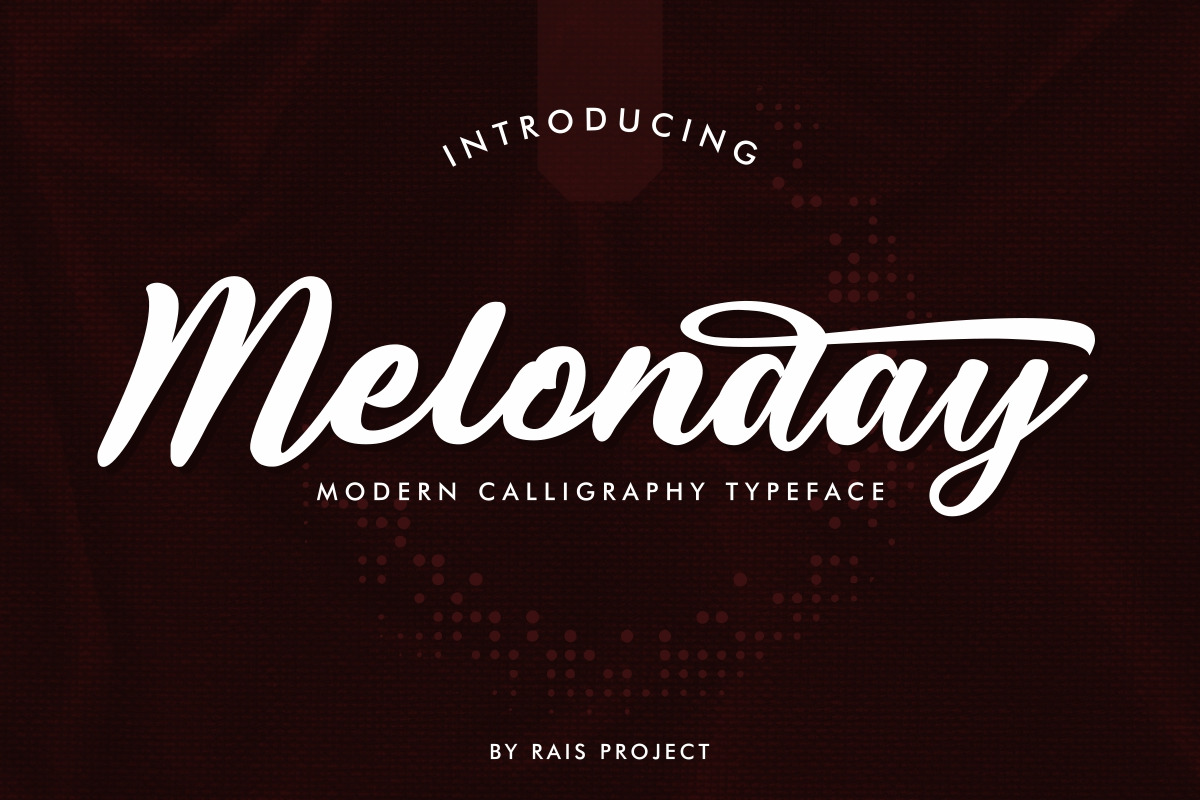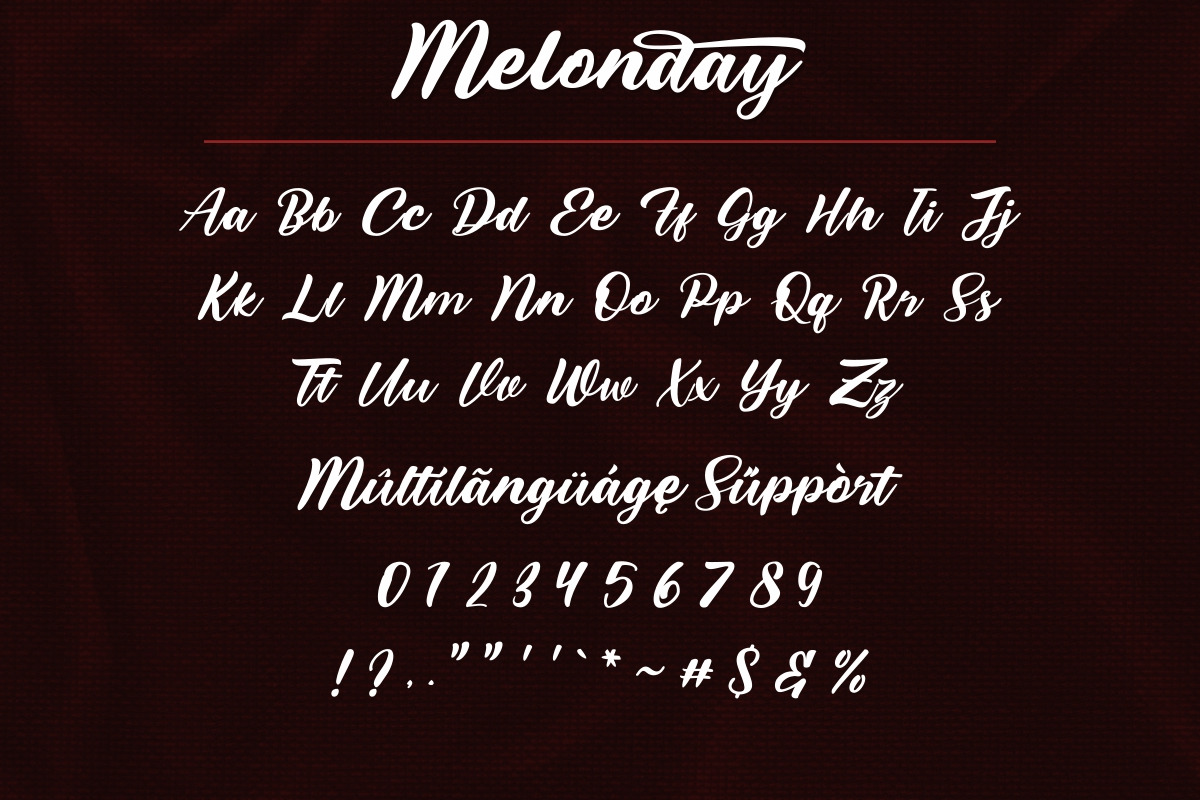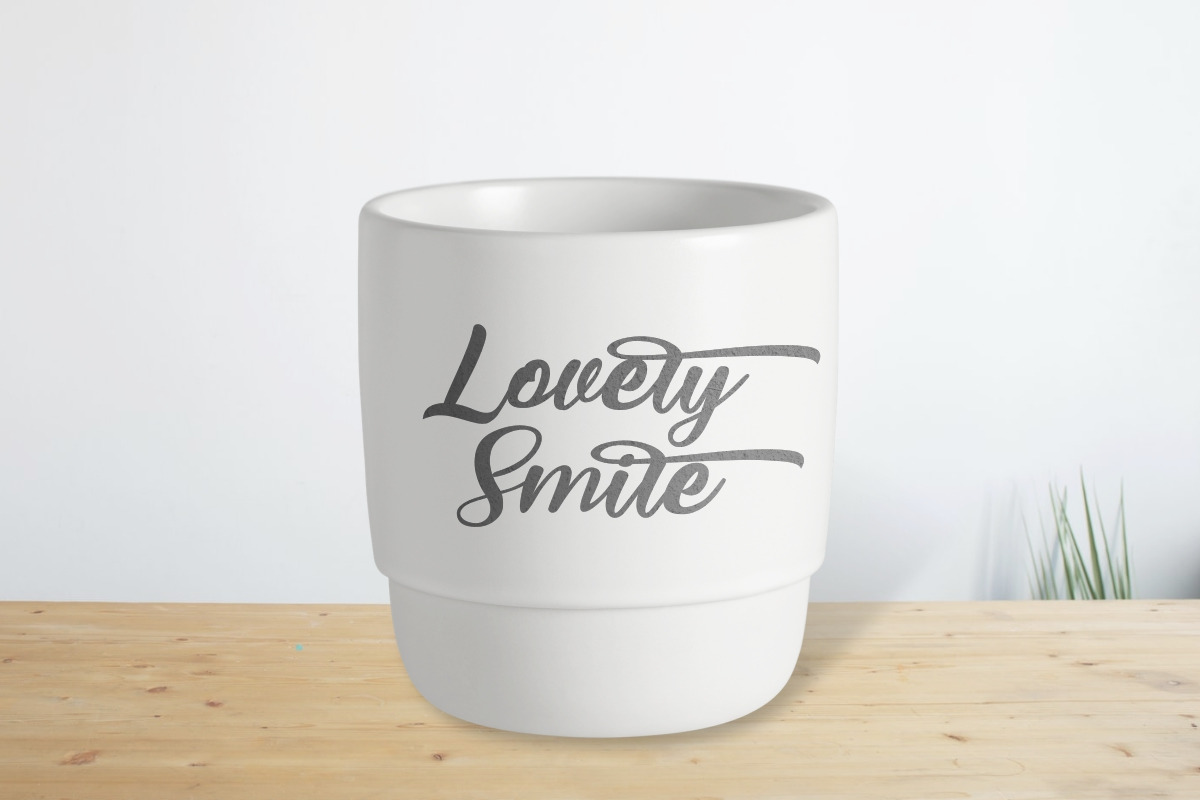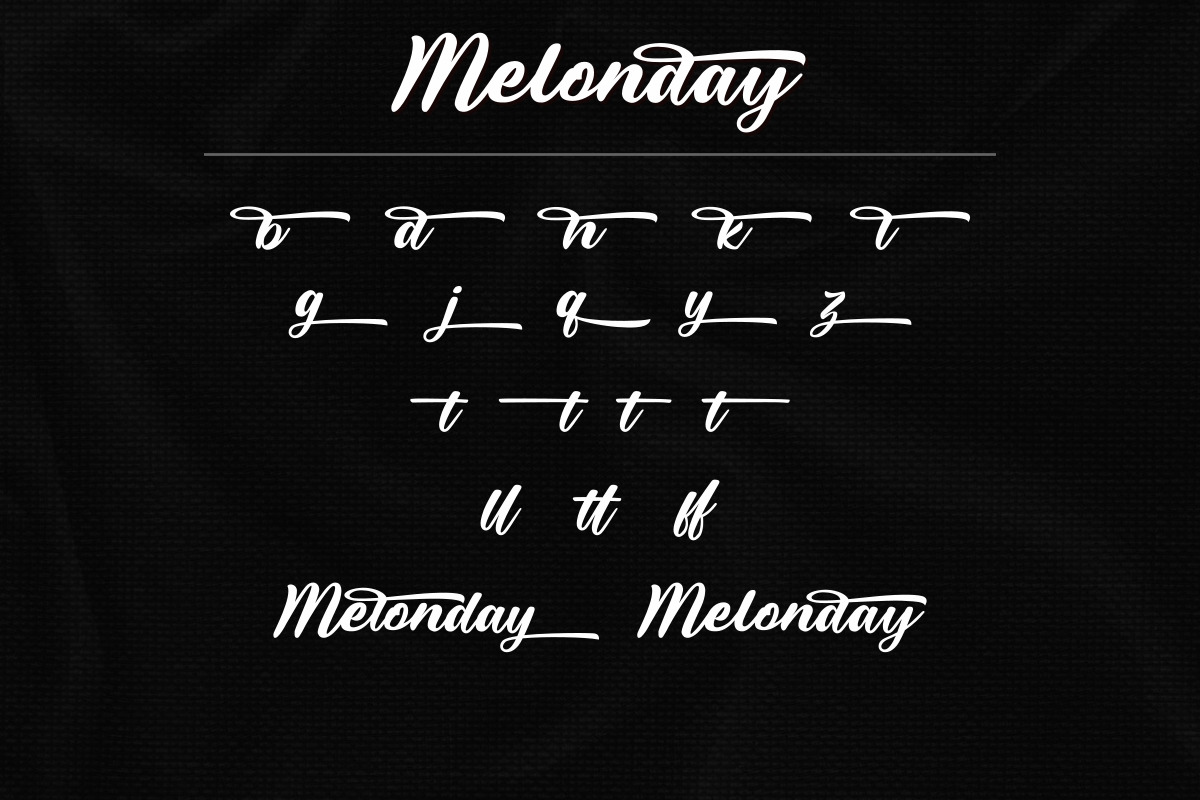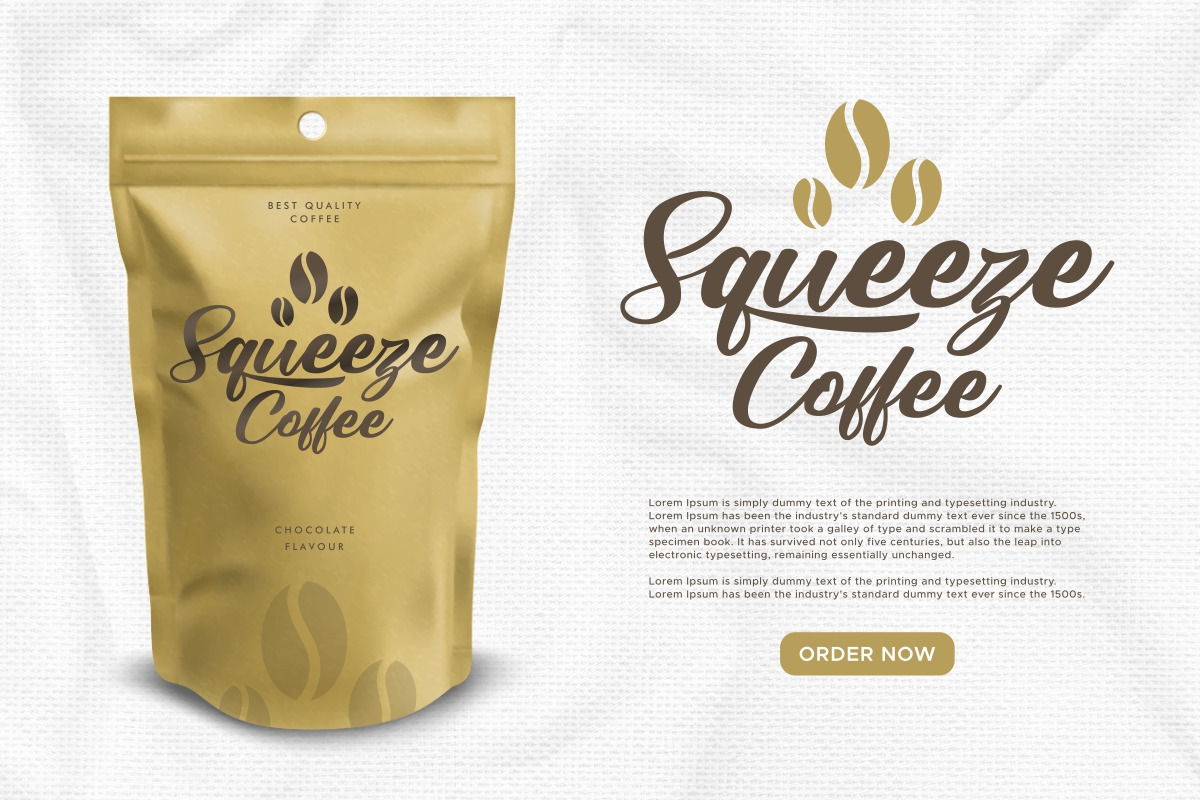
Melonday Font
Melonday Font is a script font with calligraphy handwriting style, this font is ready to be used for your special project including : weddings, promotion, events, branding, advertising, magazine, shopping, signage, invitation, stationery, social media posts, product packaging, product designs, label, photography, watermark etc
Melonday Font includes full set of gorgeous uppercase and lowercase letters, numerals, a large range of punctuation and ligatures.